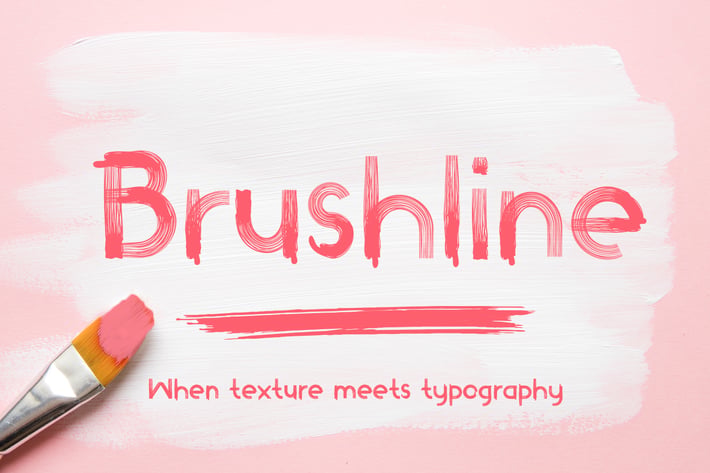
Brushline Font
Font Description:
Brushline is a bold and textured display font that combines artistic brush strokes with a modern edge. Perfect for eye-catching headlines, creative branding, posters, and digital artwork, this versatile typeface adds personality and depth to any design. With its handcrafted feel and expressive style, Brushline is ideal for designers seeking a unique and dynamic look. Download now to elevate your projects with bold strokes and artistic flair!
Unique letterforms